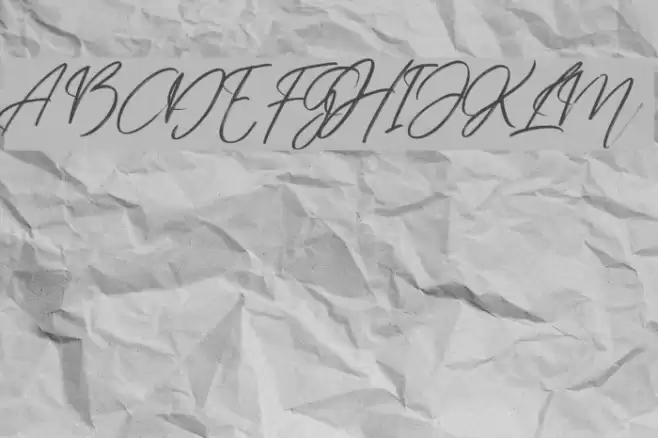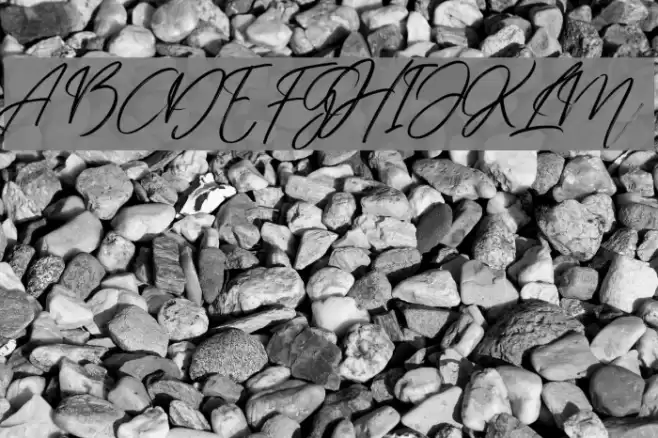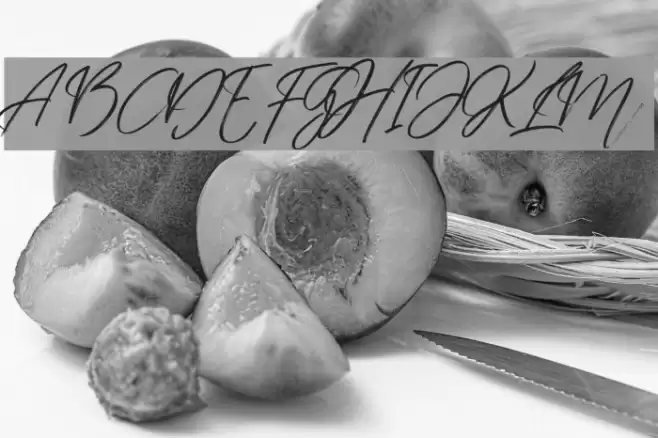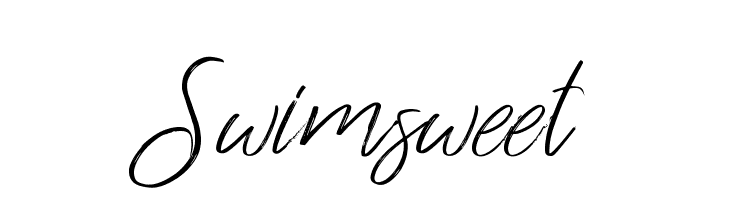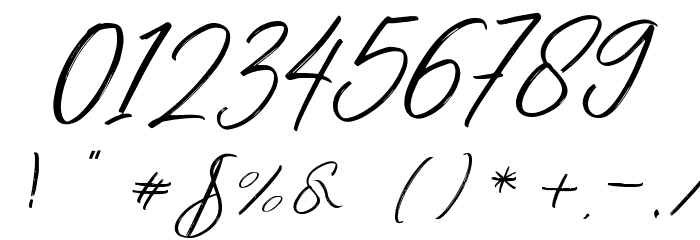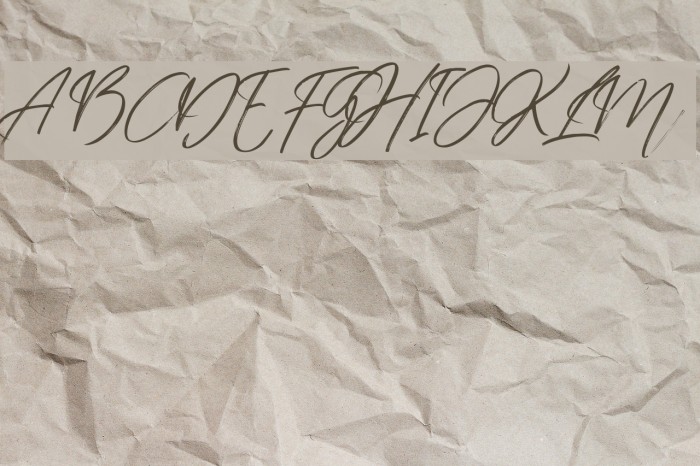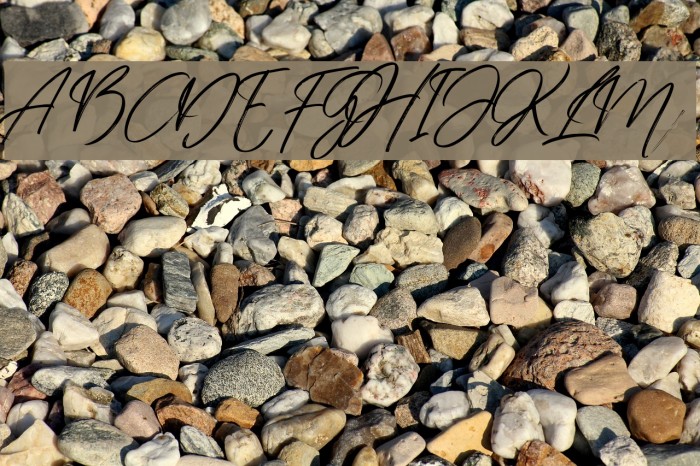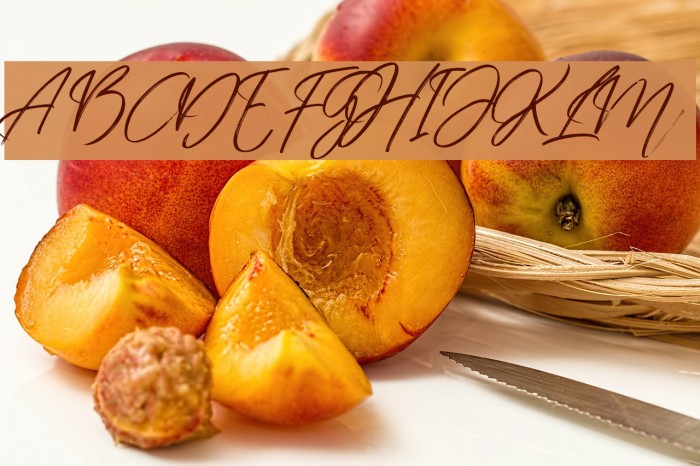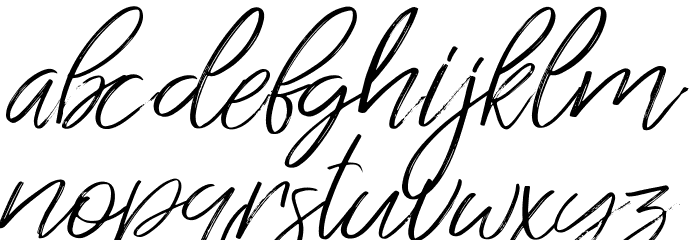
Swimsweet Font
Swimsweet Description
This font exudes a lively and elegant script style, characterized by its fluid and dynamic strokes. The letters are interconnected, creating a seamless flow that mimics natural handwriting. The uppercase letters are bold and expressive, while the lowercase letters maintain a graceful and consistent rhythm. The numerals are clear and well-integrated into the overall design, ensuring readability. Special characters are thoughtfully designed to match the font's aesthetic, adding versatility for various uses. The overall appearance is both sophisticated and approachable, making it suitable for a range of creative applications.
A lively and elegant script font with fluid, interconnected strokes from Uncategorized fonts.
- Proposed Projects: Ideal for wedding invitations, greeting cards, branding, and personal stationery.
- Overall Style: Elegant, Handwritten
- Use Case: Logos, Invitations, Personal Correspondence